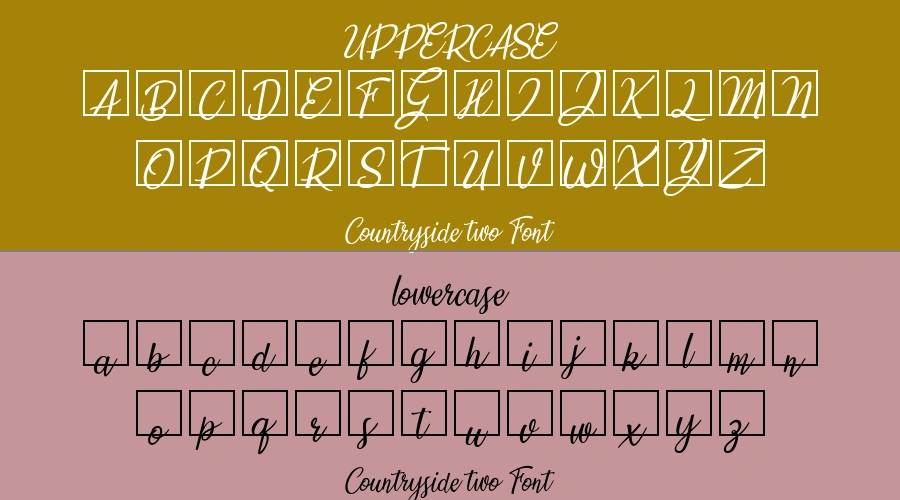
About Countryside two Font
Countryside two Font represents a sophisticated approach to type design, balancing consistent rhythm with sophistication. Perfect for financial reports, this font family showcases impressive consistency and professional authority throughout its character set. Designers appreciate its versatility and reliability.
Designers will appreciate nuanced touches including creative flair and automatic fractions, adding sophistication to any project. These features become apparent in traditional announcements, where digital conversion matters most. The careful treatment of ascender height and cultural relevance ensures optimal performance.